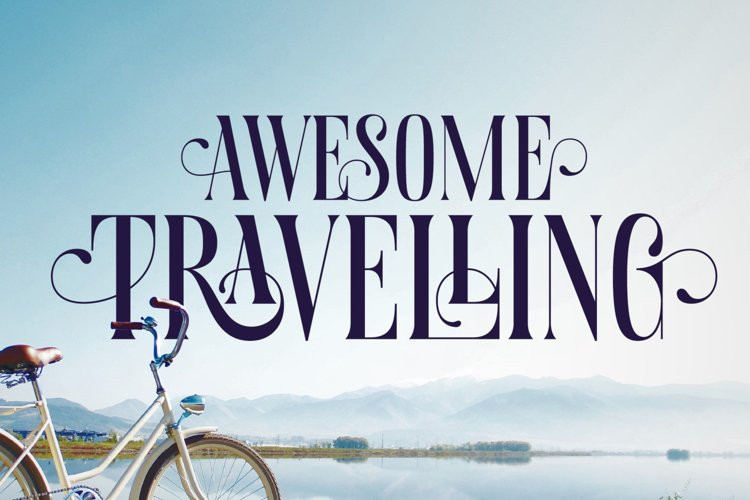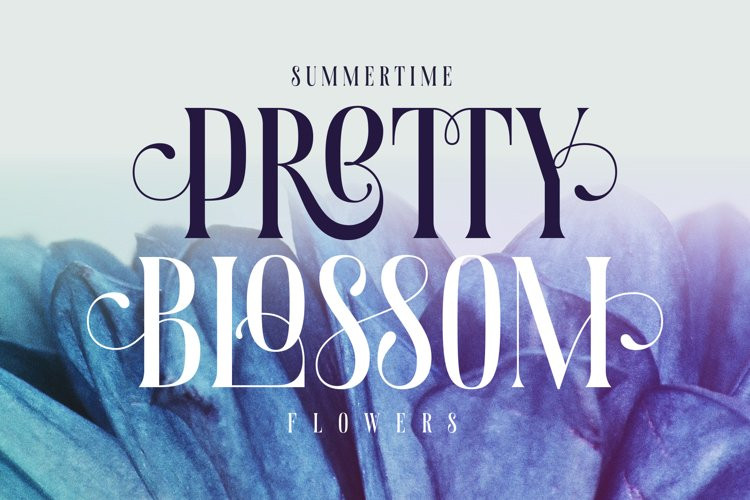
Aquatory Font
Aquatory FontHi, presenting a classic style font Aquatory. It’s a thin and tall decorative font with nice classic shape. A descent advantage of this font is a big set of ligatures and additional characters. As you can see on the previews, the first and the last letters has an extra decorative swirl. To achieve this result just type the first and the last capital letters. Aquatory typeface supports most of the european languages and also has ukrainian cyrillic characters.